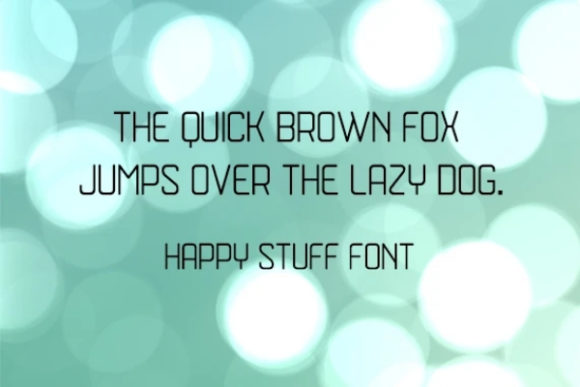
Introduction to Happy Stuff Font
Happy Stuff is a modern sans serif font.
It will complement any design need perfectly with its perfectly balanced mix of the smooth and sharp .
Key Features of Happy Stuff Font
Why Choose Happy Stuff Font?